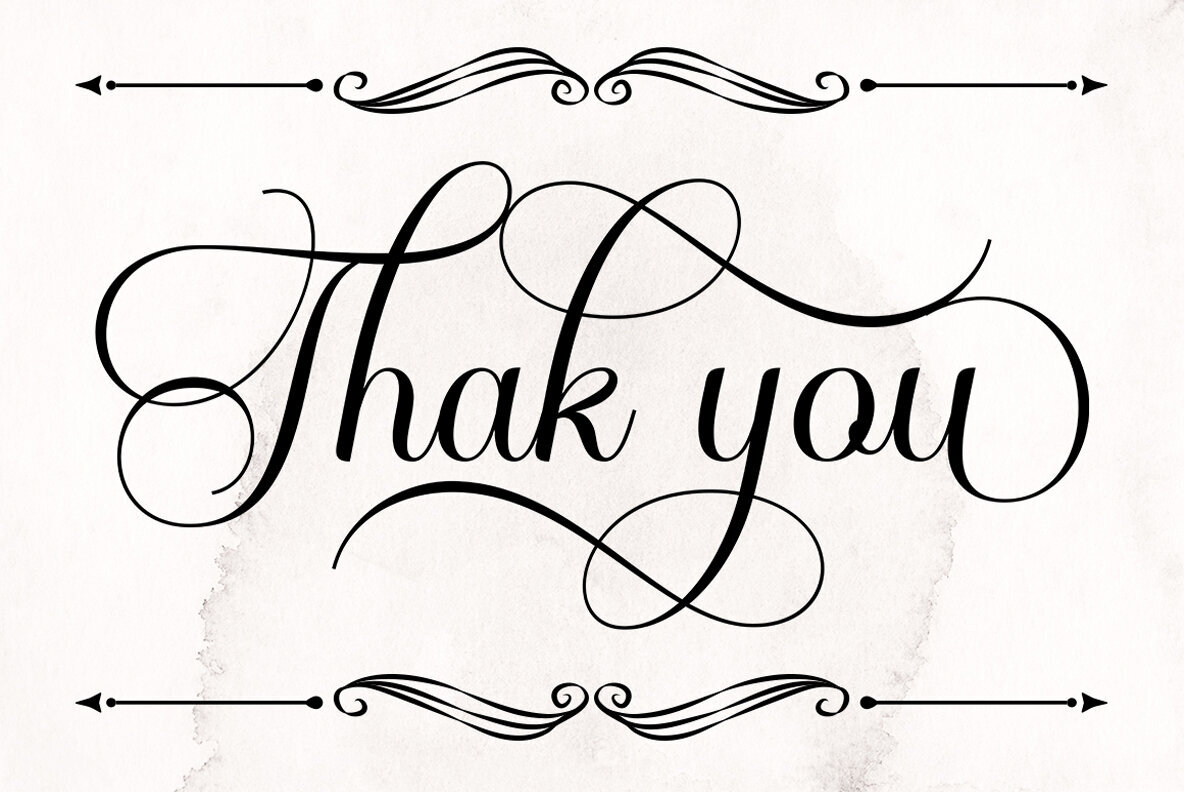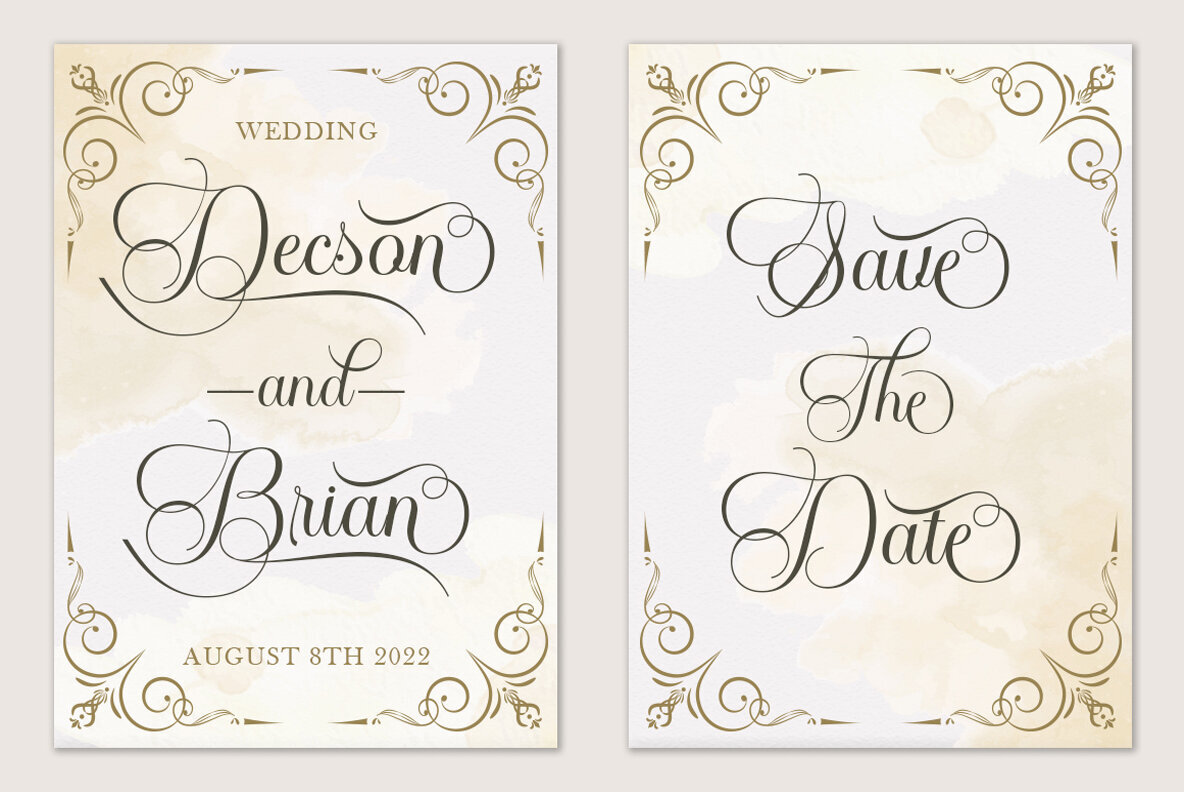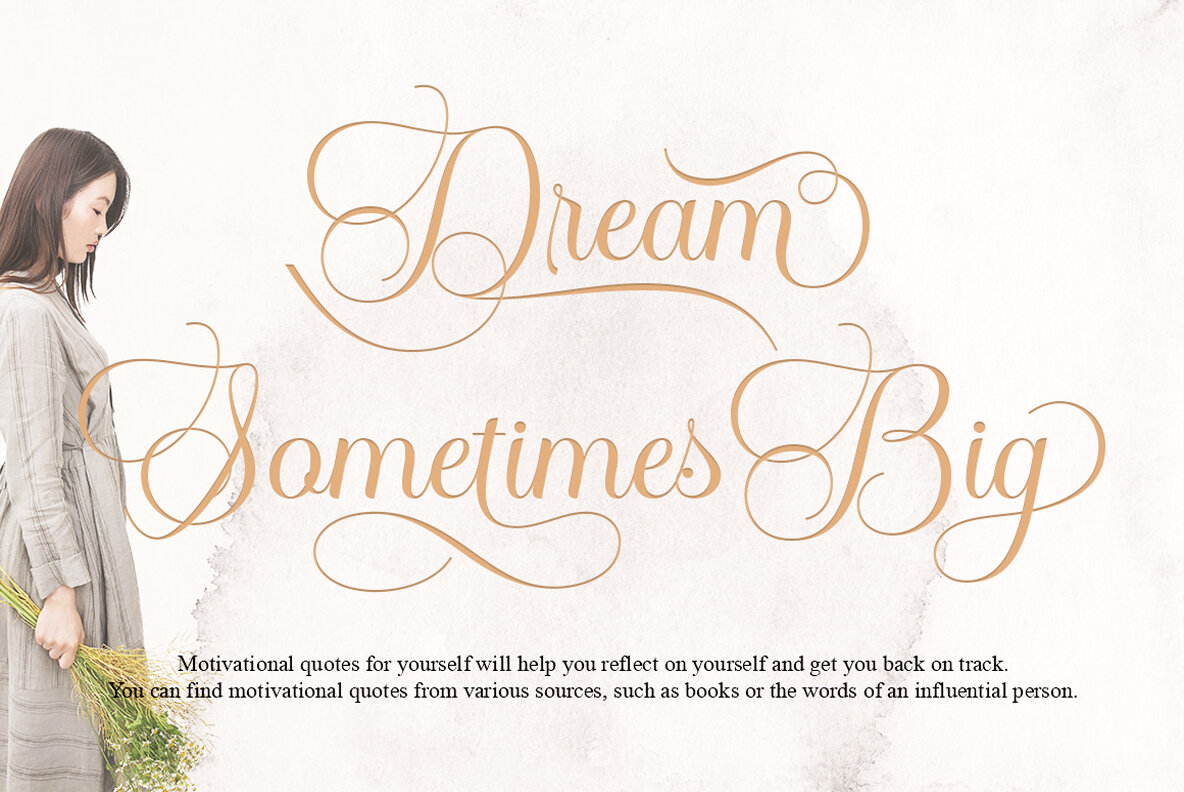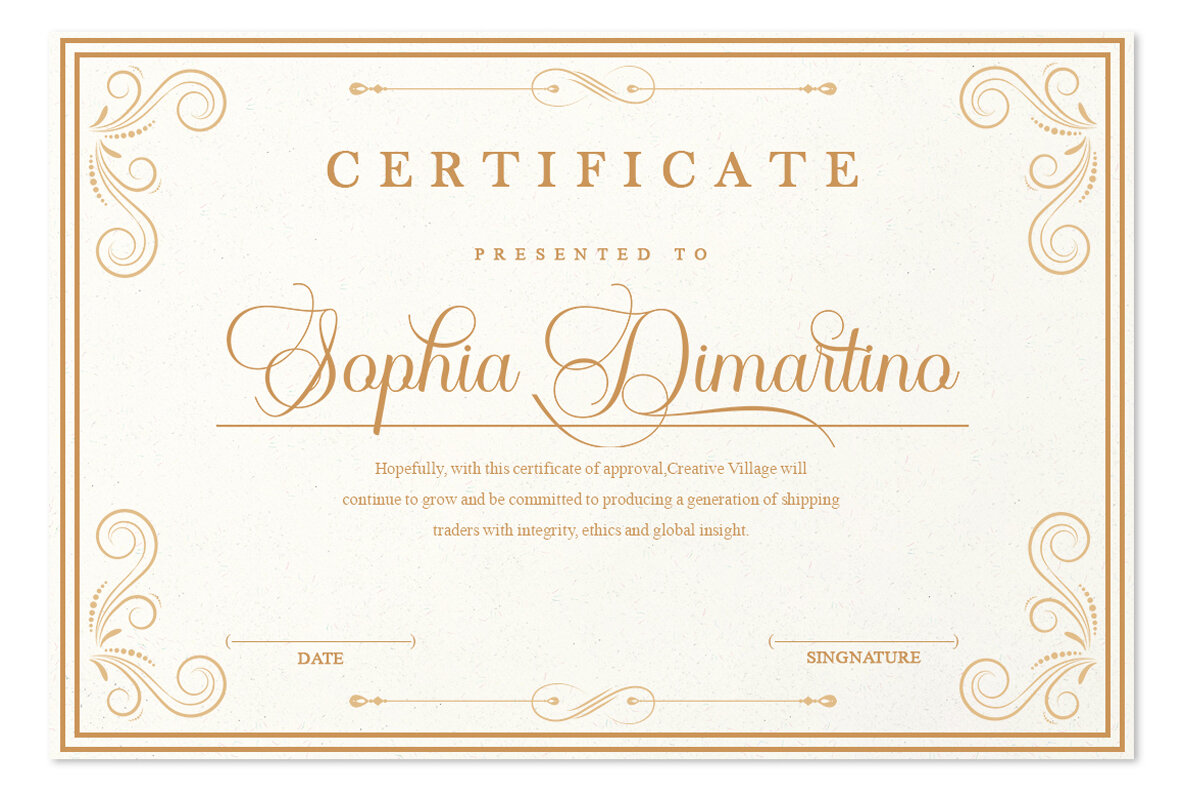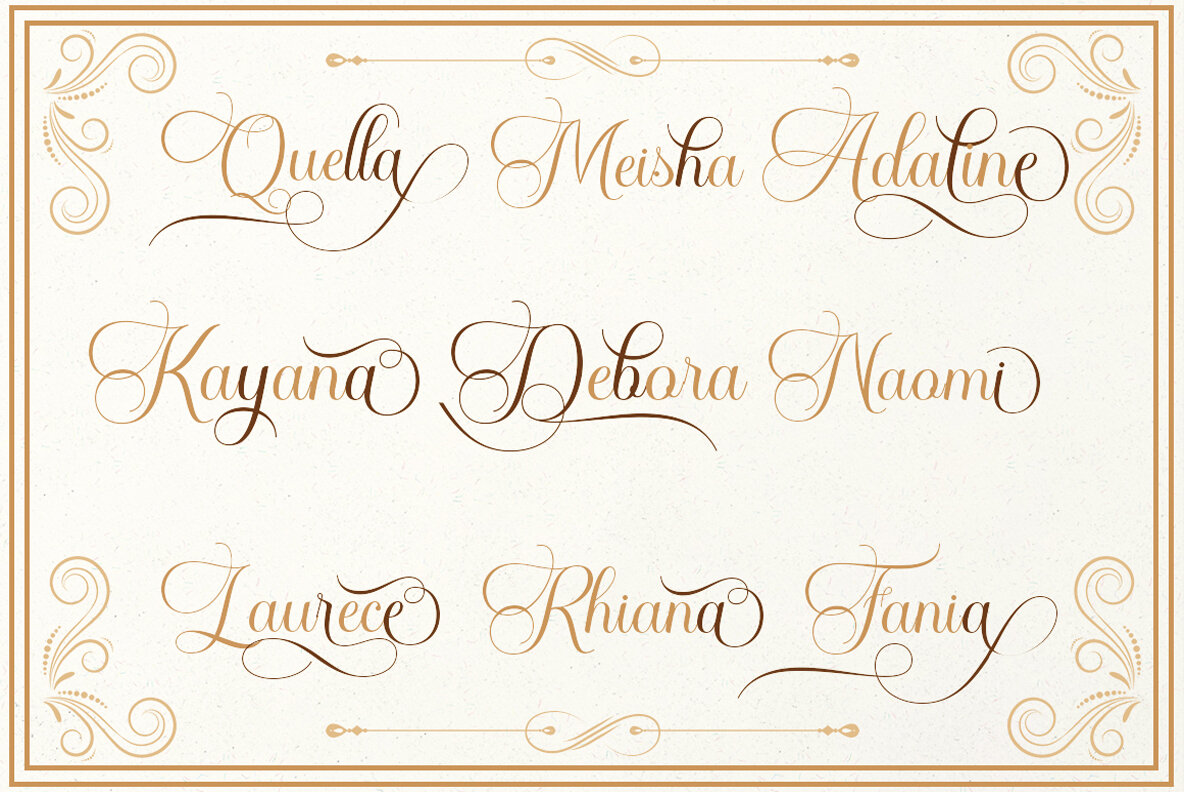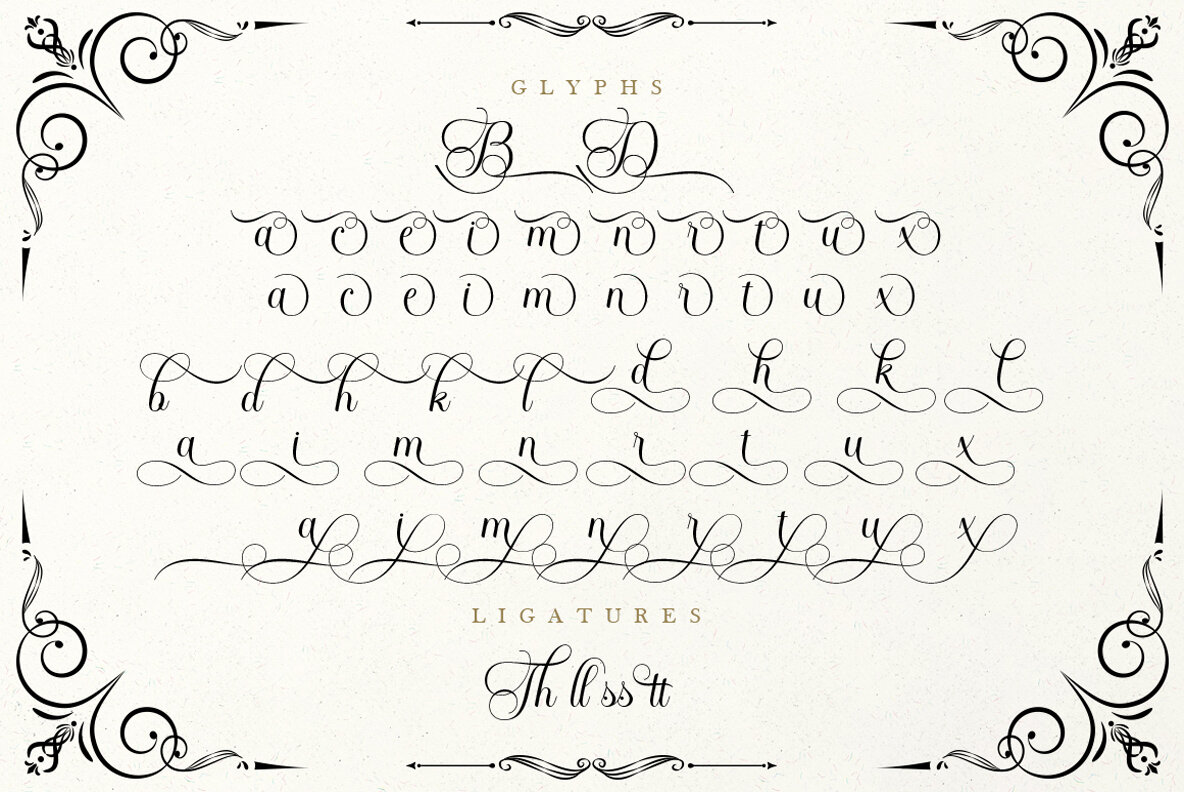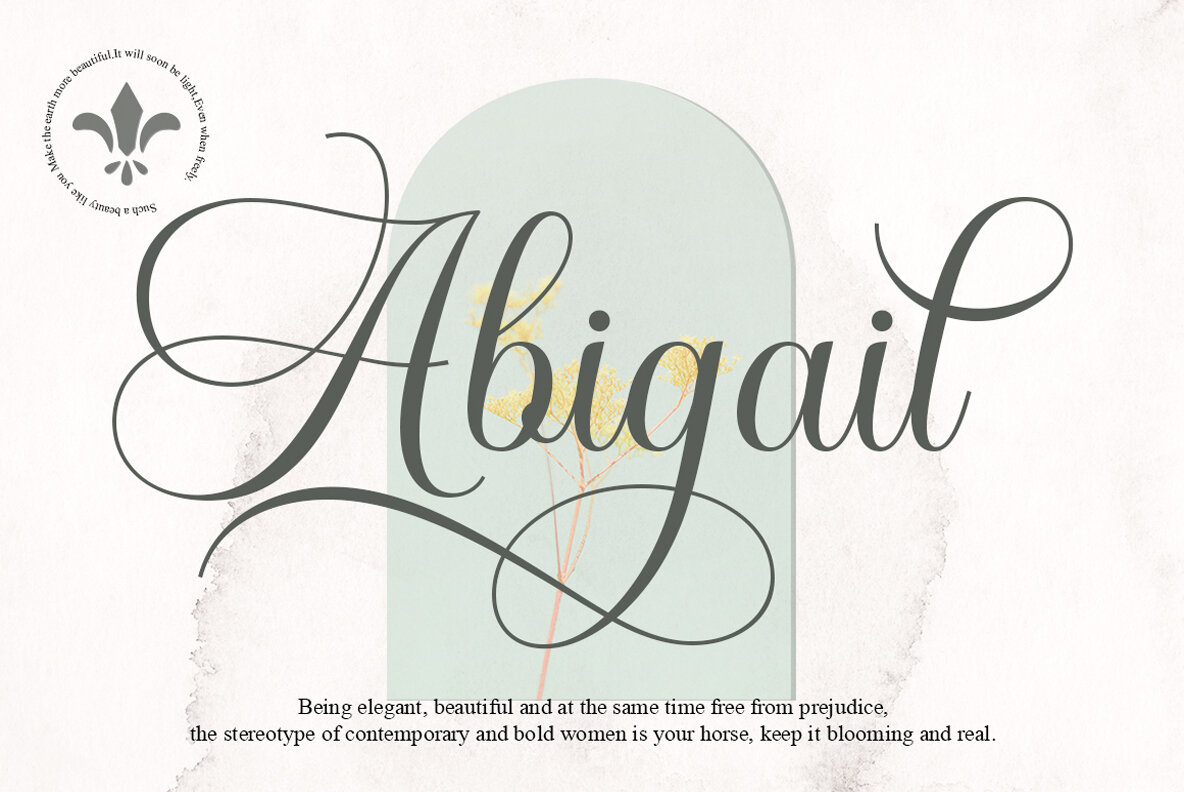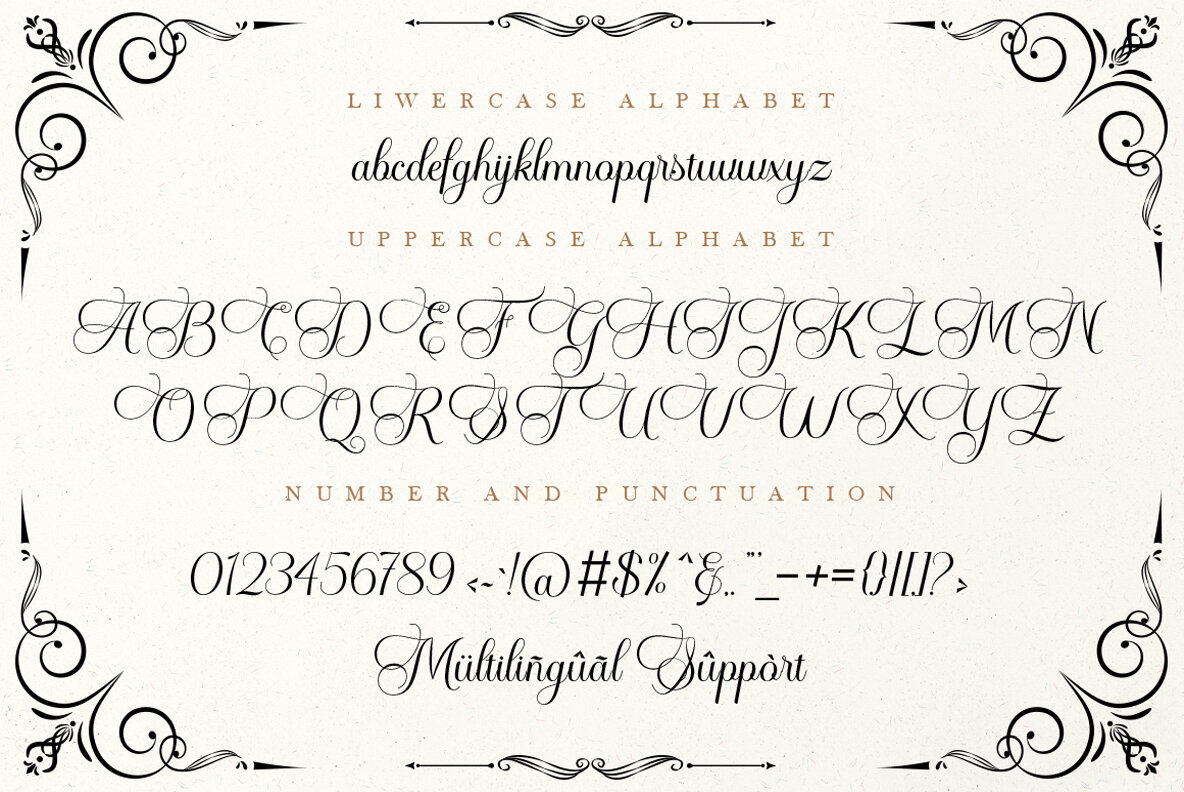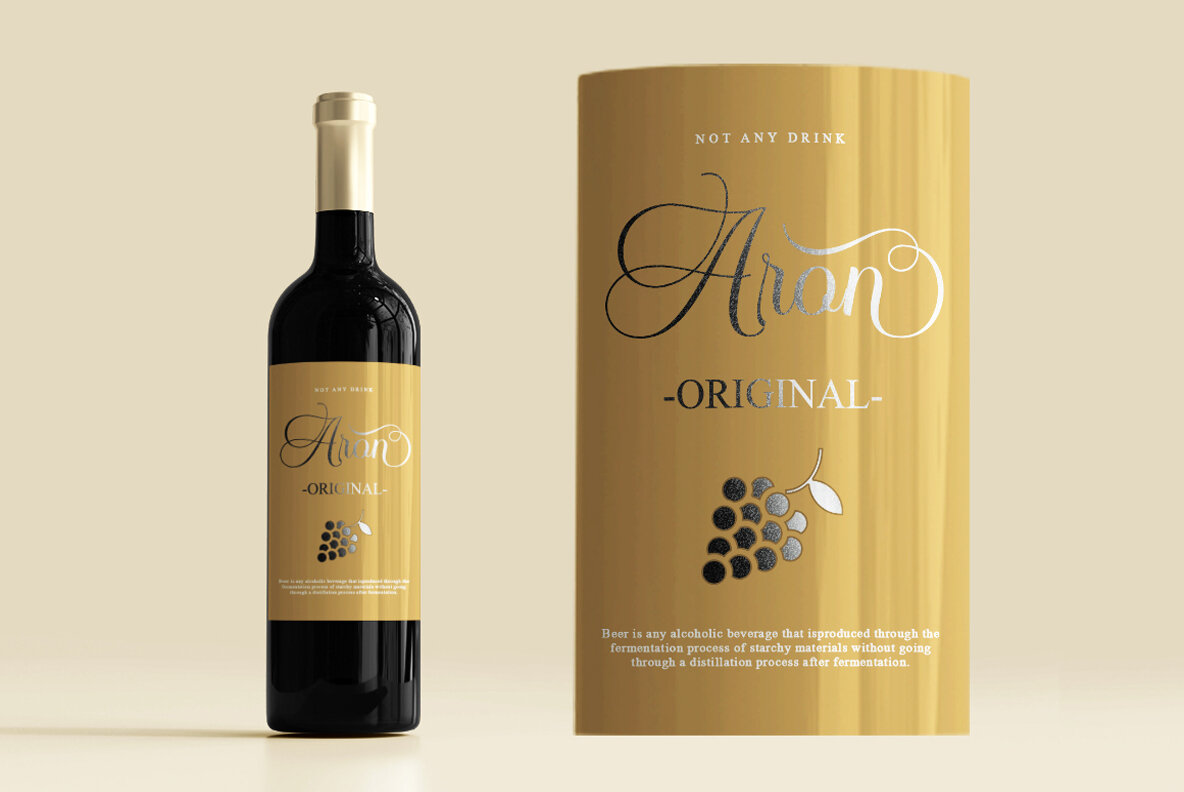
Andalucia Font
Andalucia Regular
Andalucia is a calligraphic script font that comes with beautiful alternate characters. copper plate calligraphy mix with handlettering style. Designed to convey stylish elegance. Andalucia is attractive because it is subtle, clean, feminine, sensual, glamorous, simple and very easy to read. The classic style is very suitable to be applied in all types of formal work such as invitations, labels, menus, logos, fashion, make up, stationery, letterpress, romantic novels, magazines, books, greeting/wedding cards, packaging, labels. Andalucia features a glyph and alternate characters. including multiple language support. It features OpenType with styling, binding, and character strokes, allowing you to mix and match letter pairs to match your design. Files include: Andalucia (OTF, TTF) To enable the OpenType Stylistic alternative, you need a program that supports OpenType features such as Adobe Illustrator CS, Adobe Indesign & CorelDraw X6-X7, Microsoft Word 2010 or a later version. (Windows), Font Book (Mac) or a software program such as PopChar (for Windows and Mac). There are additional ways to access the alternative/swash, using Character Maps (Windows), Nexus Fonts (Windows) Font Book (Mac) or a software program such as PopChar (for Windows and Mac).